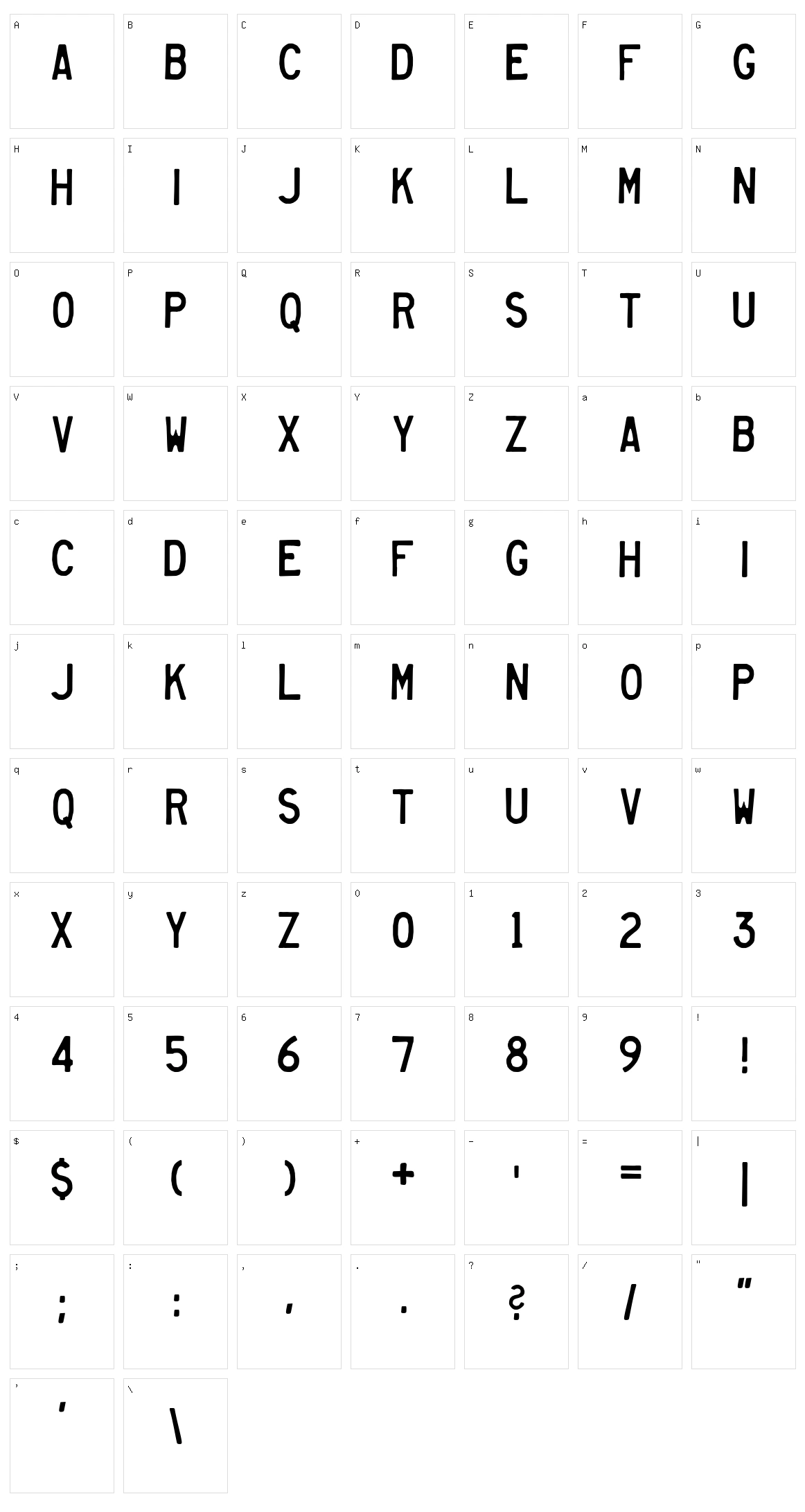
Heavy Equipment Font
The Heavy Equipment font is a sans-serif font that resembles the fonts of the Michigan license plates from the 1960's and 1970's. This font is in the public domain and comes with a Euro sign.